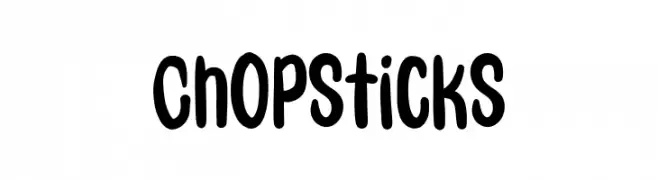
A bold, playful font with thick, rounded strokes and a whimsical style.
A playful, bold, hand-drawn font with a cartoonish style.
A playful, bold font with rounded edges and a friendly appearance.
A playful, bubble-like font with bold, rounded characters.
A bold, rounded, and playful font with a chunky appearance.
A bold, geometric font with a unique halftone pattern and modern artistic flair.
A bold, slightly condensed font with a hand-drawn quality.
A bold, playful font with whimsical, artistic strokes and exaggerated curves.
A playful, hand-drawn font with rounded, quirky letterforms.
A bold, 3D font with a playful, dynamic style and shadow effect.
An elegant script font with intricate swashes and flowing letterforms.
An elegant script font with intricate swashes and a classic calligraphic style.
A playful, informal handwritten font with rounded, smooth letterforms.
A modern, geometric font with clean lines and balanced characters.
A geometric and bold font with clean lines and balanced proportions.
A modern serif font with sharp serifs and elegant curves, perfect for sophisticated designs.
A bold, distressed font with a gritty, urban style.
A bold, playful font with dynamic, cartoonish characters.
A bold, flowing script font with elegant swashes and high contrast.
A bold, angular font with sharp edges and a dramatic, condensed style.
A bold, brush-style font with a hand-drawn, energetic appearance.
A modern, geometric font with sharp angles and clean lines.
A bold, brush-style font with high contrast and an artistic, handcrafted feel.
A playful, hand-drawn font with a whimsical and informal style.
A playful, hollow, hand-drawn font with a whimsical and lighthearted style.
A decorative and bold font with elegant curves and artistic flair.
A playful, bold, and bubbly typeface with a rounded, glossy appearance.
A lively and expressive handwritten font with fluid strokes and playful elegance.
A dynamic, expressive handwritten font with brush-like strokes.